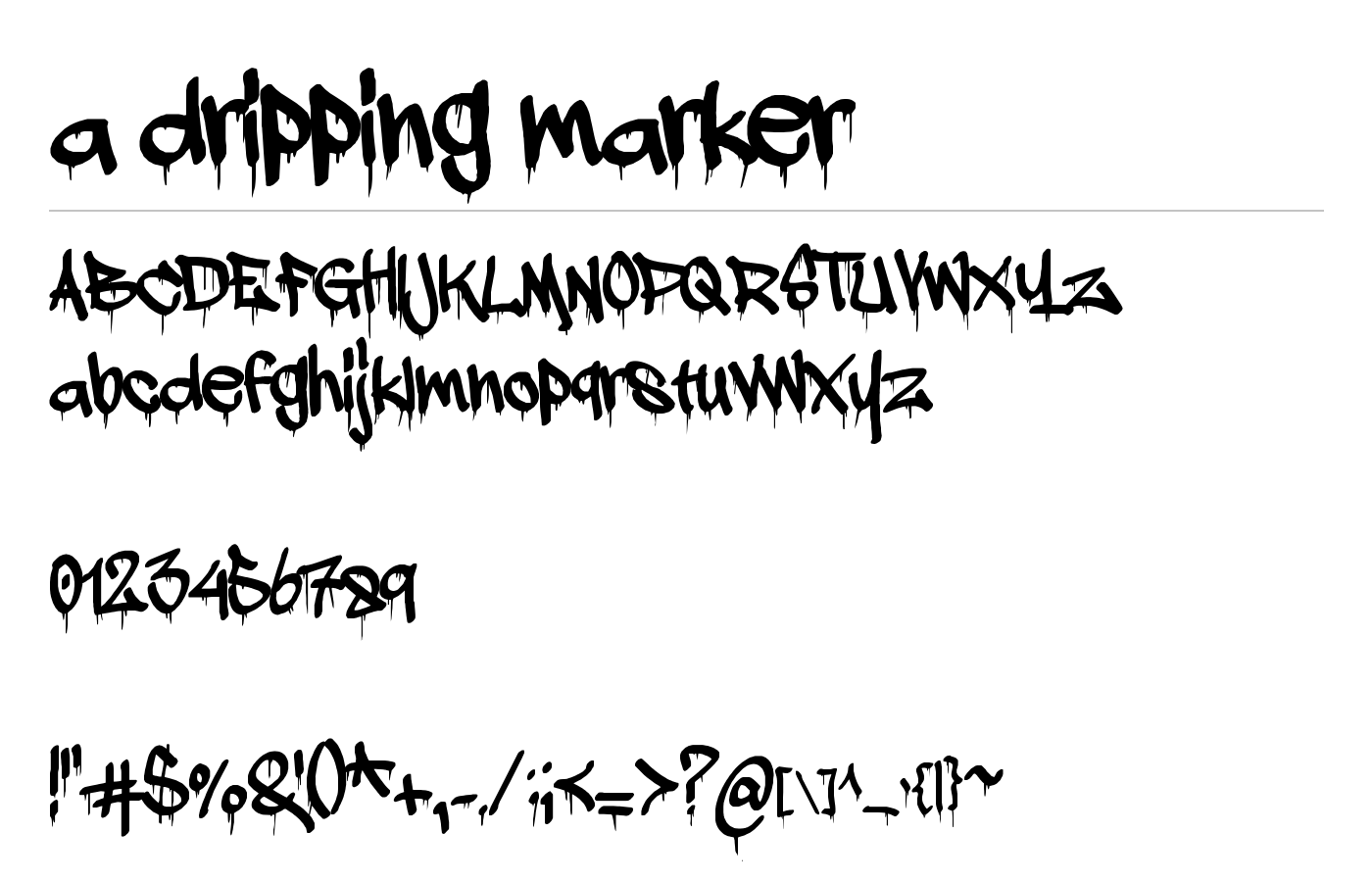
A Dripping Marker is a bold, hand-drawn sans serif font with a distinctive graffiti style, featuring irregular, dripping strokes that mimic wet marker ink. Its energetic and edgy look makes it perfect for urban designs, streetwear branding, posters, and creative projects that want to convey rawness and individuality. This font’s playful yet rebellious character adds strong visual impact, especially in headlines and logos.
a dripping marker Font
About a dripping marker Font